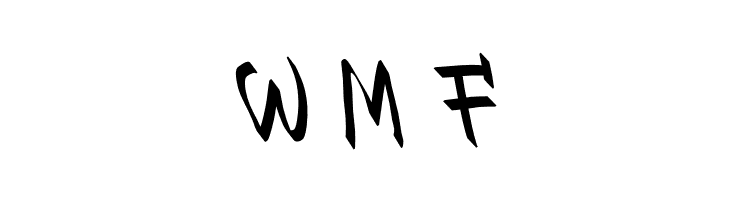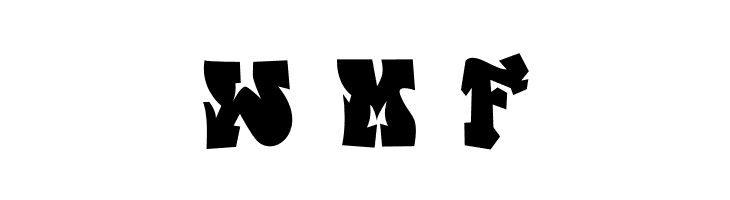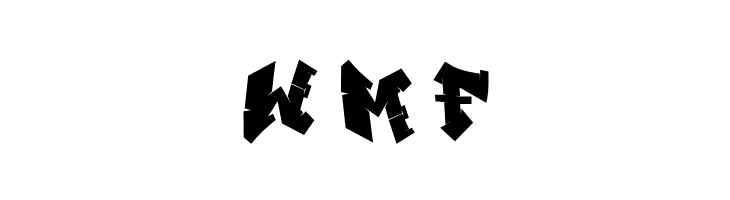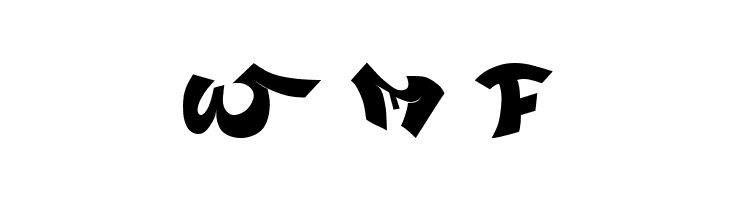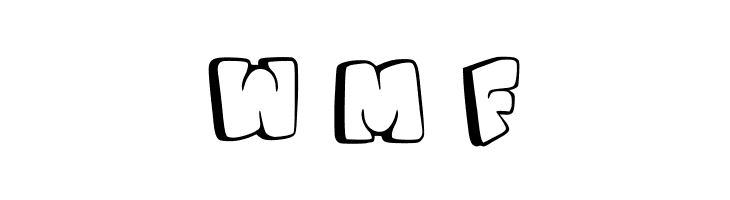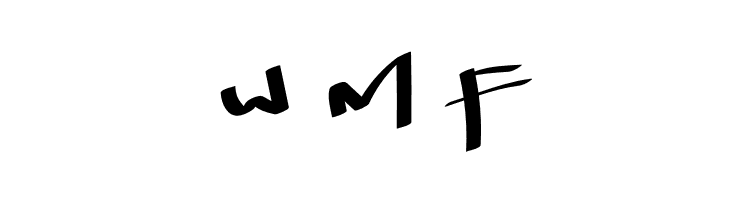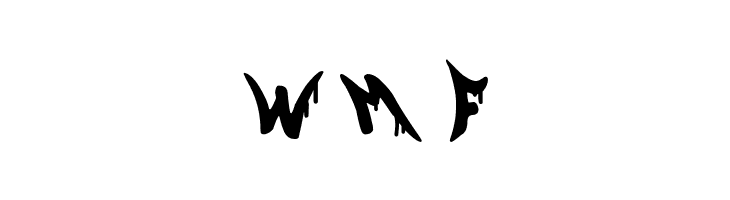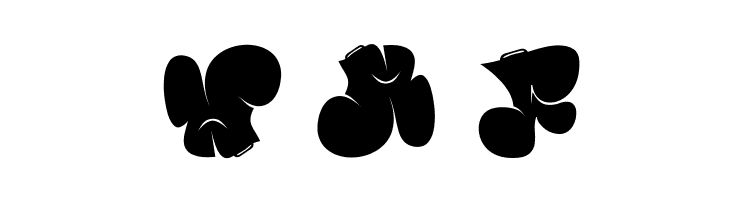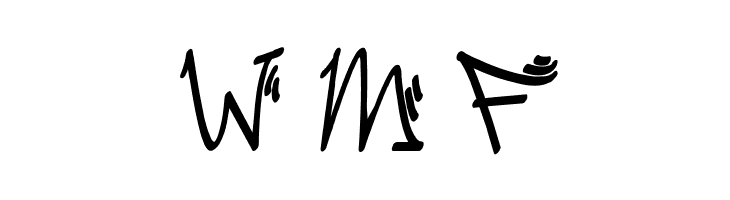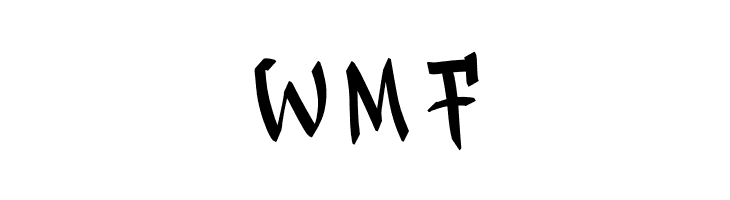
A bold, graffiti-inspired font with sharp, angular lines and a dynamic, hand-drawn style.
A bold, graffiti-inspired font with dynamic, exaggerated forms.
A bold, graffiti-inspired font with sharp angles and a dynamic, fragmented style.
A bold, graffiti-inspired font with angular, dynamic strokes.
A playful, graffiti-inspired font with bold, uneven strokes and a hand-drawn look.
A bold, graffiti-inspired font with dynamic and expressive strokes.
A bold, dripping font with a graffiti-like, horror-inspired style.
A bold, graffiti-inspired font with rounded, bulbous characters and a playful urban style.
A graffiti-inspired font with bold, sweeping strokes and intricate detailing.
A bold, graffiti-inspired font with sharp, angular lines and dynamic style.